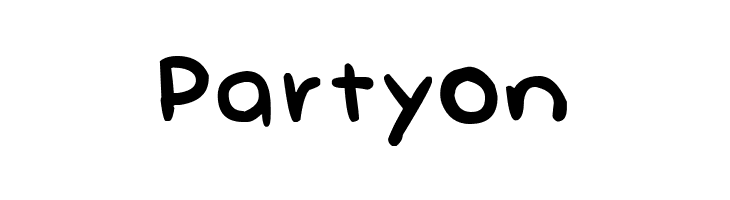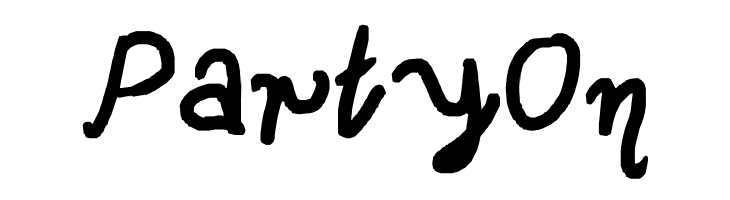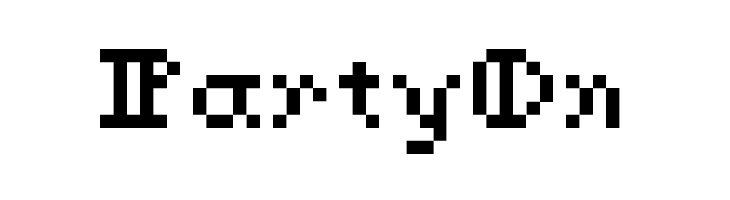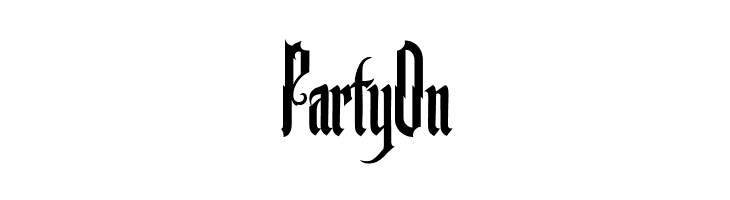
A sleek, italicized font with a modern and elegant style.
A bold, decorative font with a mosaic-like pattern, ideal for striking visual designs.
A bold, hand-drawn font with sharp, angular strokes and a dynamic, graffiti-like style.
A bold, distressed font with a grunge, film strip aesthetic.
A bold, mosaic-patterned decorative font with a unique artistic style.
An organic, branch-like font with a dark, mysterious aesthetic.
An intricate, nature-inspired decorative font with vine-like embellishments.
A decorative, bold font with a twisted, shadowed design ideal for dramatic displays.
A bold, decorative font with an eerie, twisted branch design.
A decorative font with elongated vertical strokes and geometric patterns.
A bold, geometric font with a futuristic and modern aesthetic.
A bold, italicized font with sharp angles and a futuristic style.
A bold, graffiti-inspired font with a rugged, hand-drawn style.
A bold, modern sans-serif font with rounded edges and consistent stroke thickness.
A modern, bold, and rounded font with a clean geometric structure.
A bold, iconographic font featuring culturally significant symbols.
A bold, striped font with high contrast and a modern, decorative style.
A futuristic, alien-like script with smooth curves and sharp angles, perfect for sci-fi themes.
A bold, futuristic font with angular, geometric characters.
A playful, informal handwritten font with a casual and approachable style.